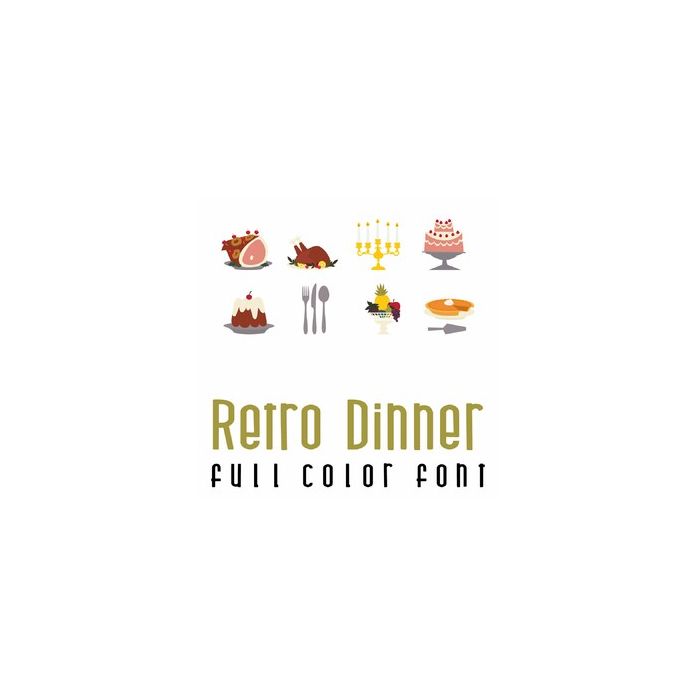
This fun full color doodlebat font features 26 retro styled food and dining images for the perfect holiday feast. Perfect for cards, crafts, gifts, decor, scrap book pages, planner stickers and more!